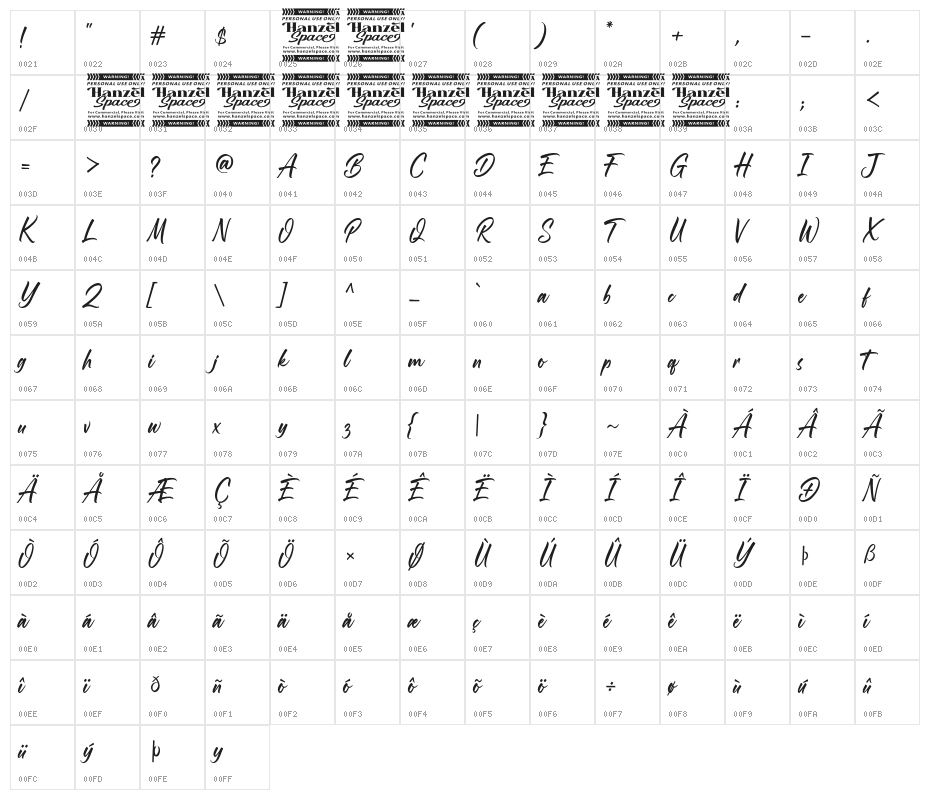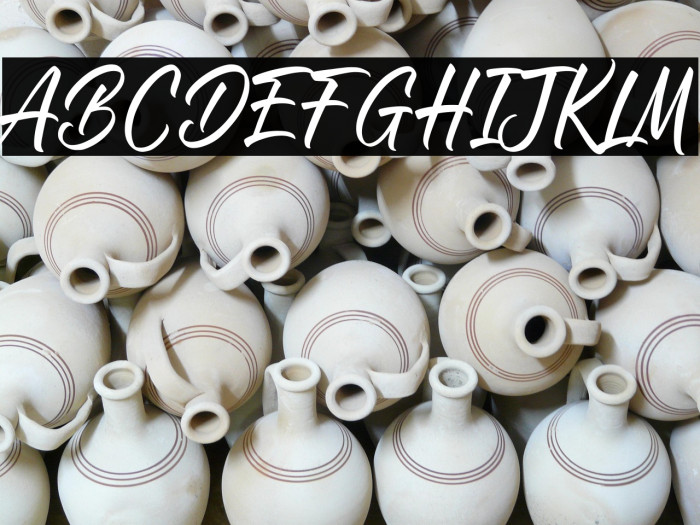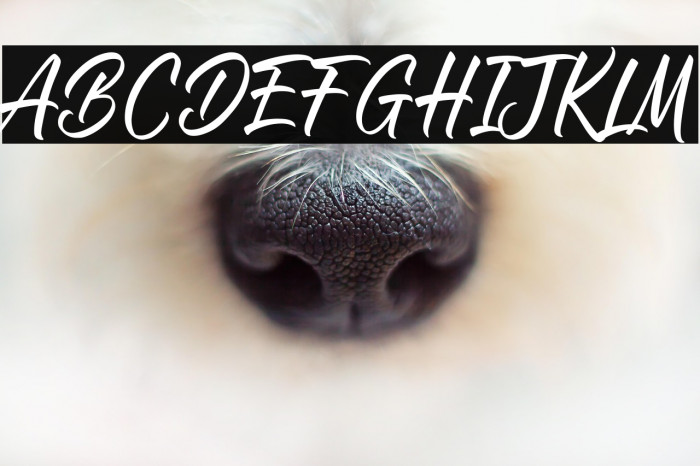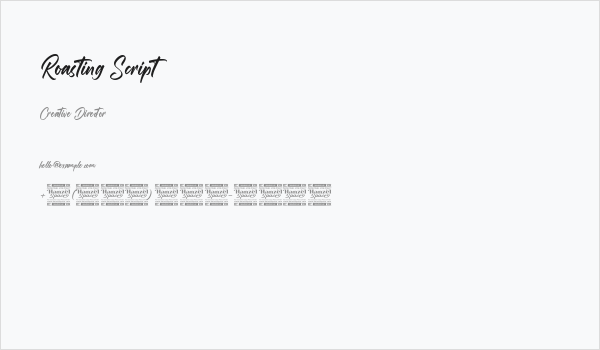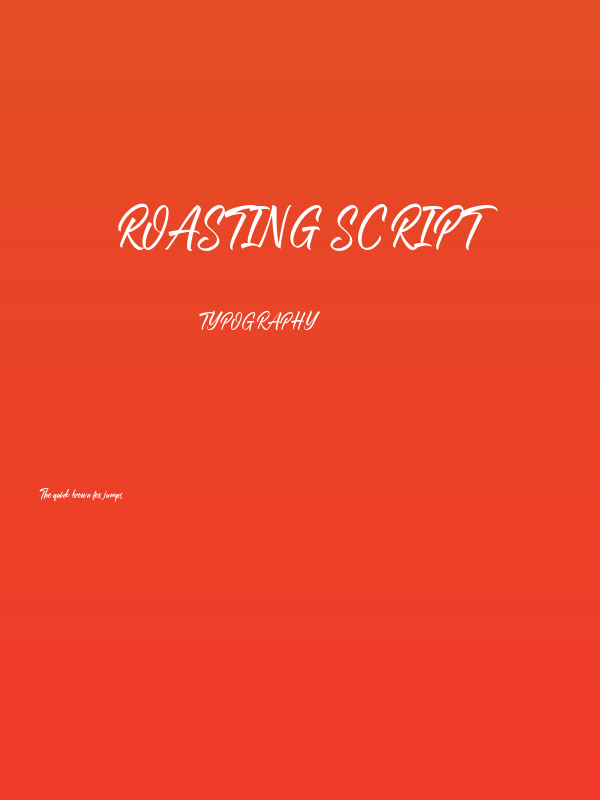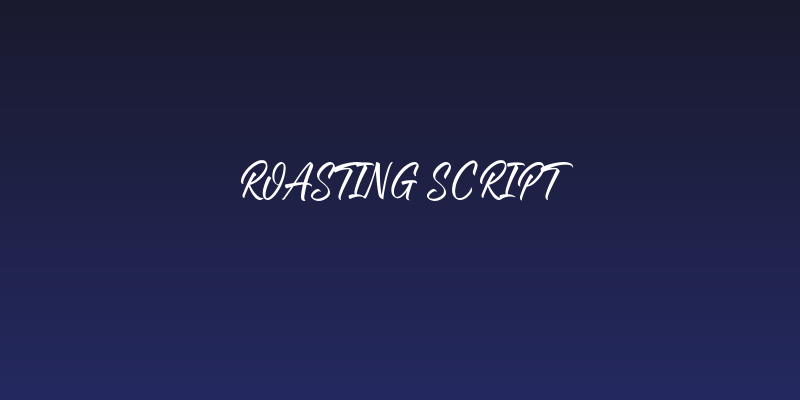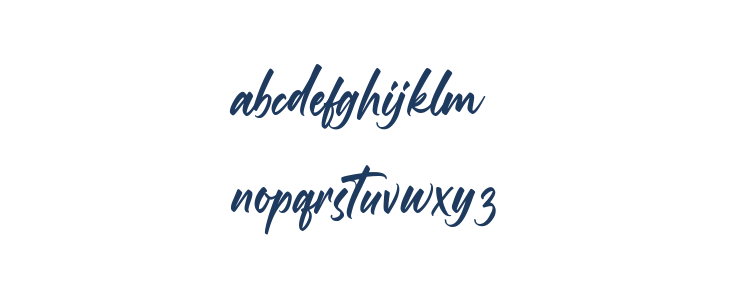
Roasting Script Font
Roasting Script Description
This font features a dynamic and flowing script style, characterized by its elegant and fluid strokes. The uppercase letters are bold and slightly slanted, giving a sense of movement and grace. The lowercase letters maintain a consistent flow, with smooth connections between characters, enhancing the cursive appearance. The numerals and special characters are designed to match the overall script style, ensuring uniformity across all glyphs. This font exudes a sense of sophistication and creativity, making it ideal for projects that require a personal and artistic touch.
| Overall Style | Elegant, Artistic |
| Use Case | Logos, Invitations, Artistic projects |
| Proposed Projects | Ideal for wedding invitations, branding, logo design, and artistic projects that require a personal touch. |